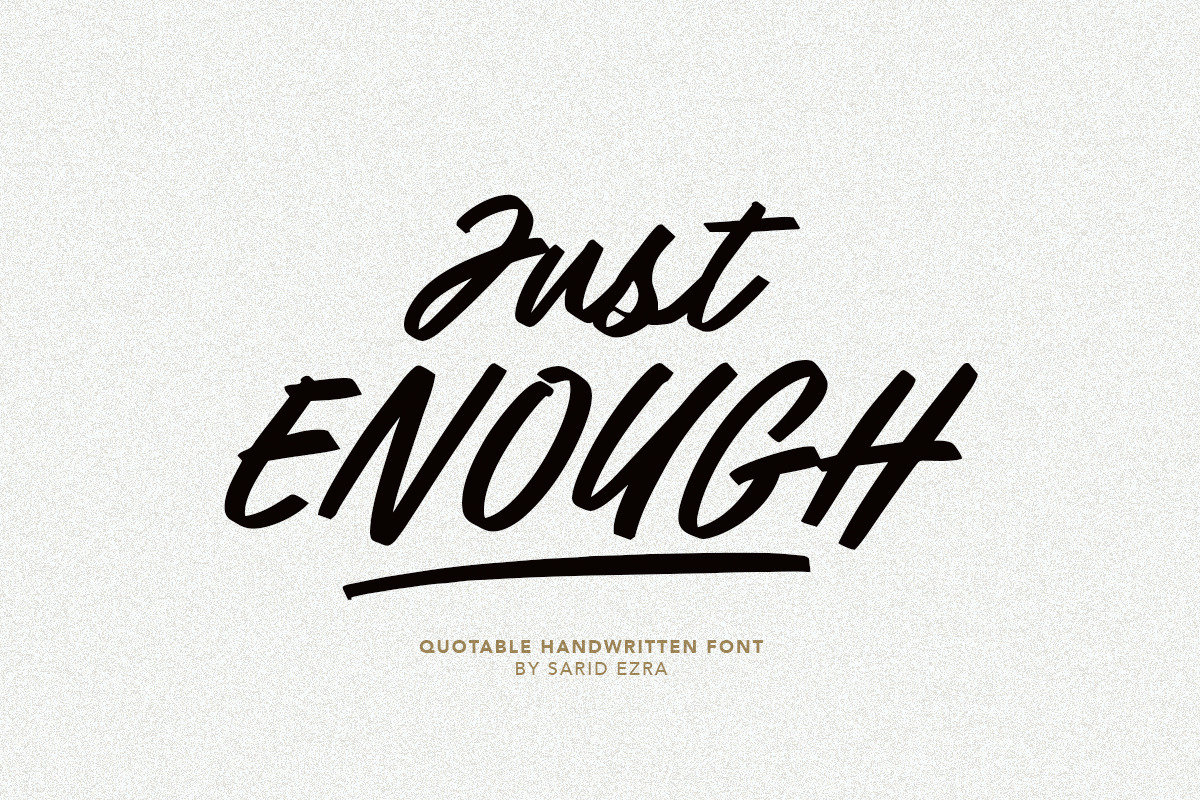
Just Enough - Quotable Font
Introducing, Just Enough, a minimalist handwritten font!
Just Enough is handwritten quotable font that you can use both lowercase & uppercase separately and will still looking good. You can use this font for any purposes such as a logotype, branding, slogan and very suitable for quotes. This font is so versatile, you can combine it wit your fonts collections. Just Enough also contain ligature and underline. You can access the underline from opentype feature, just type underscore + number(1-3) for example: st_1ory. This font also support multilingual.